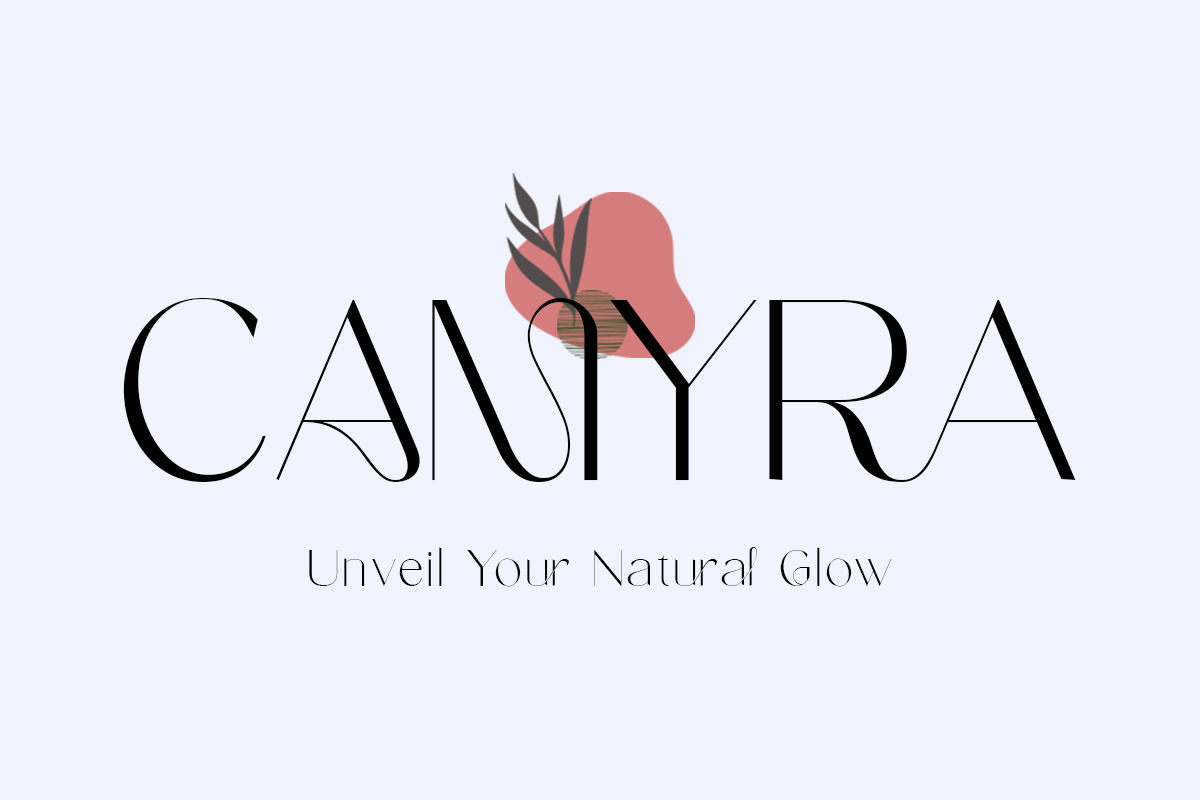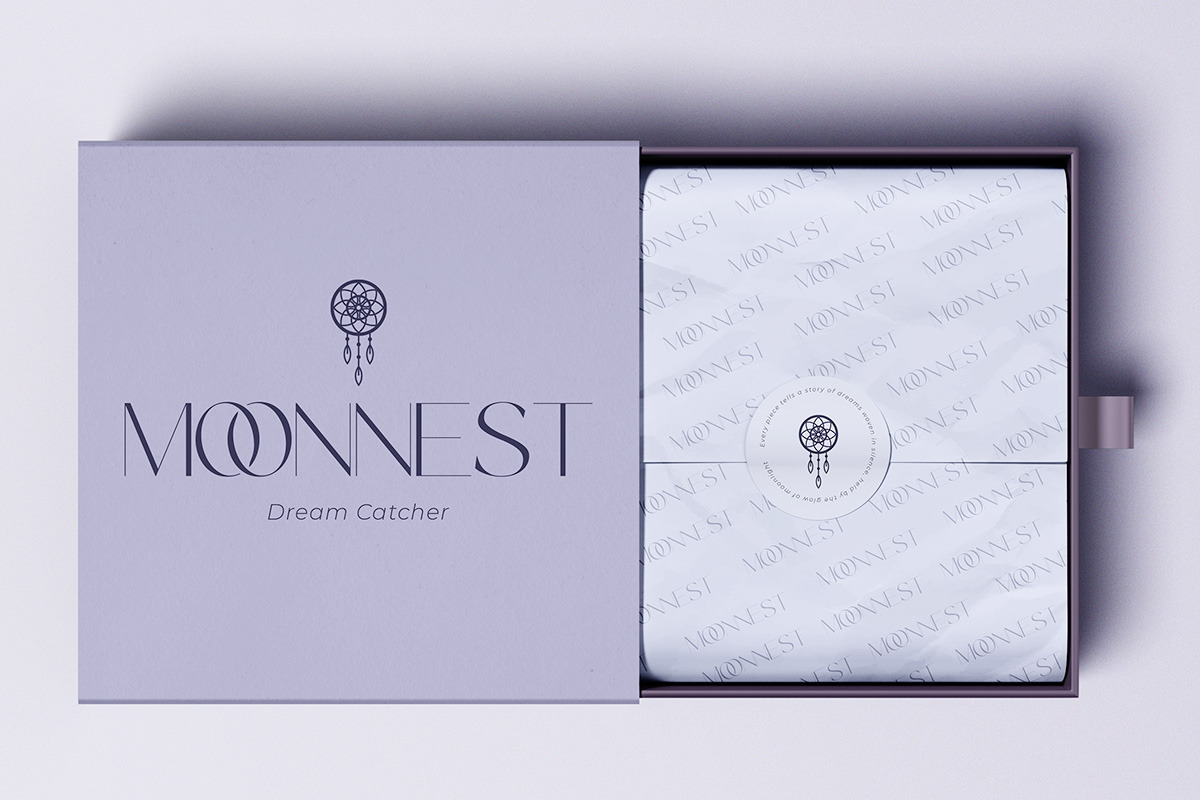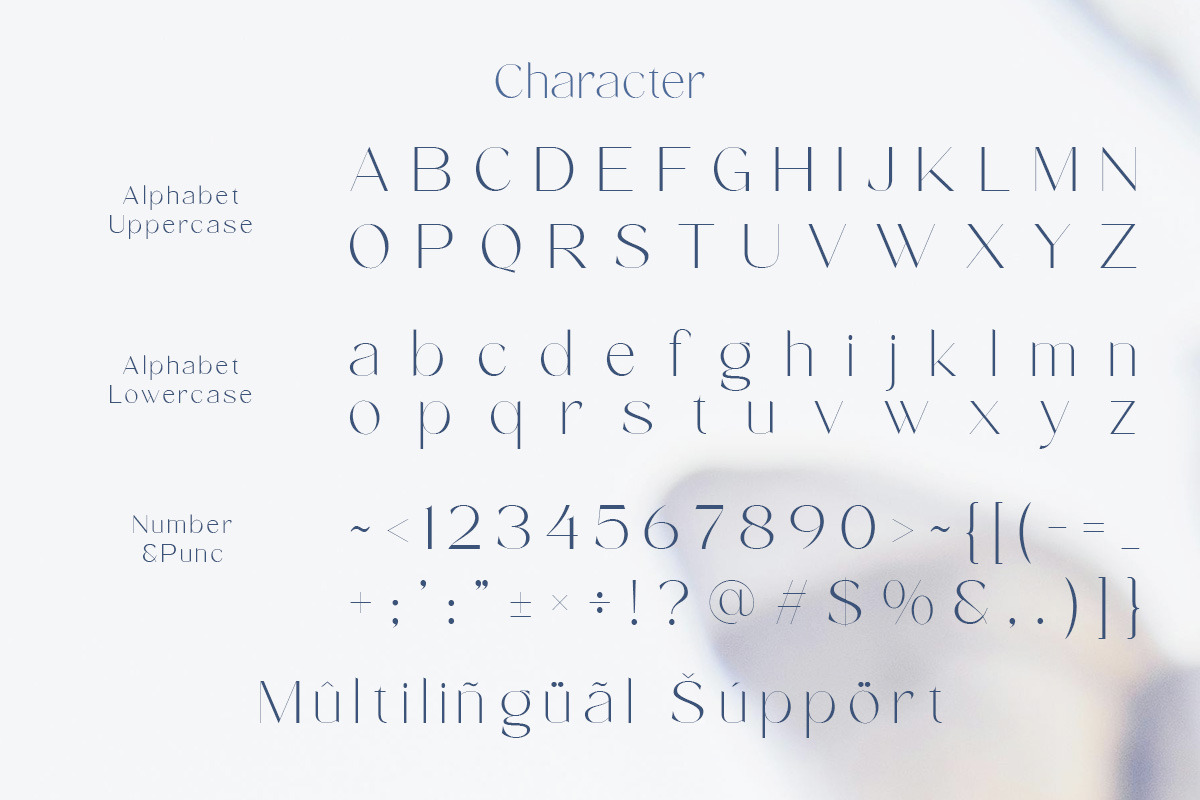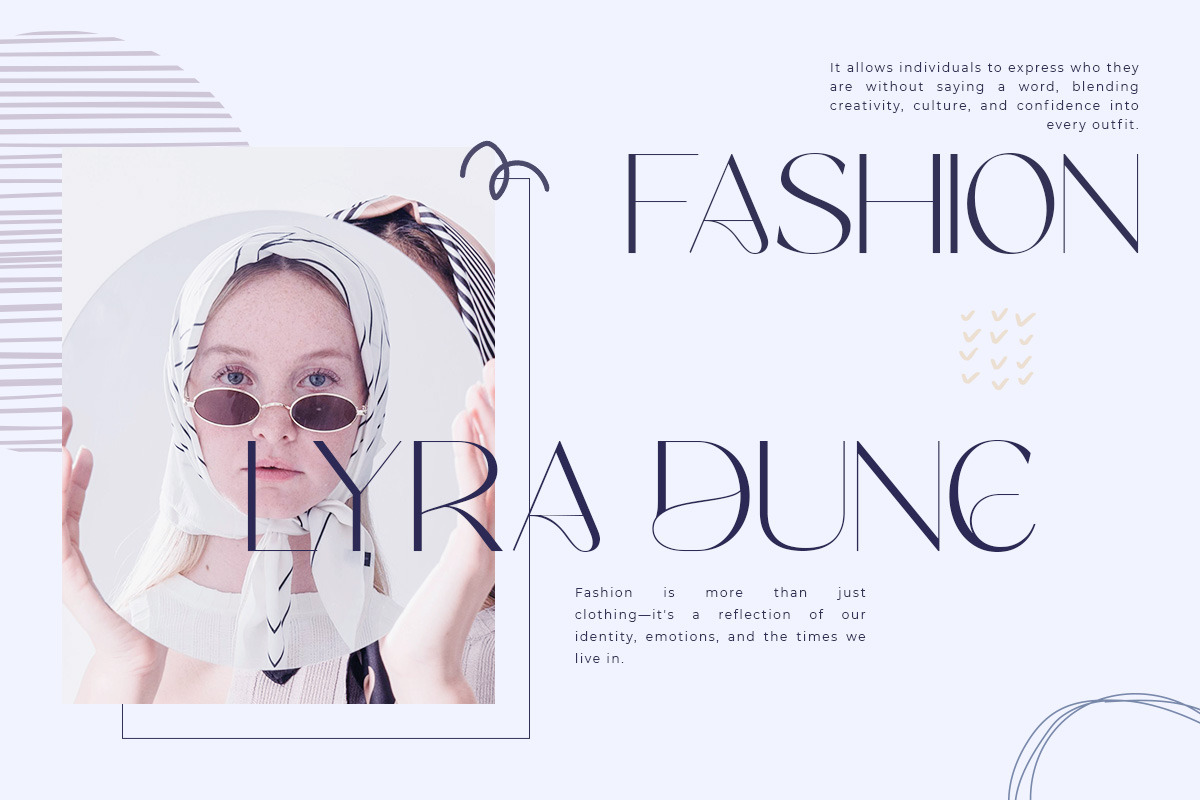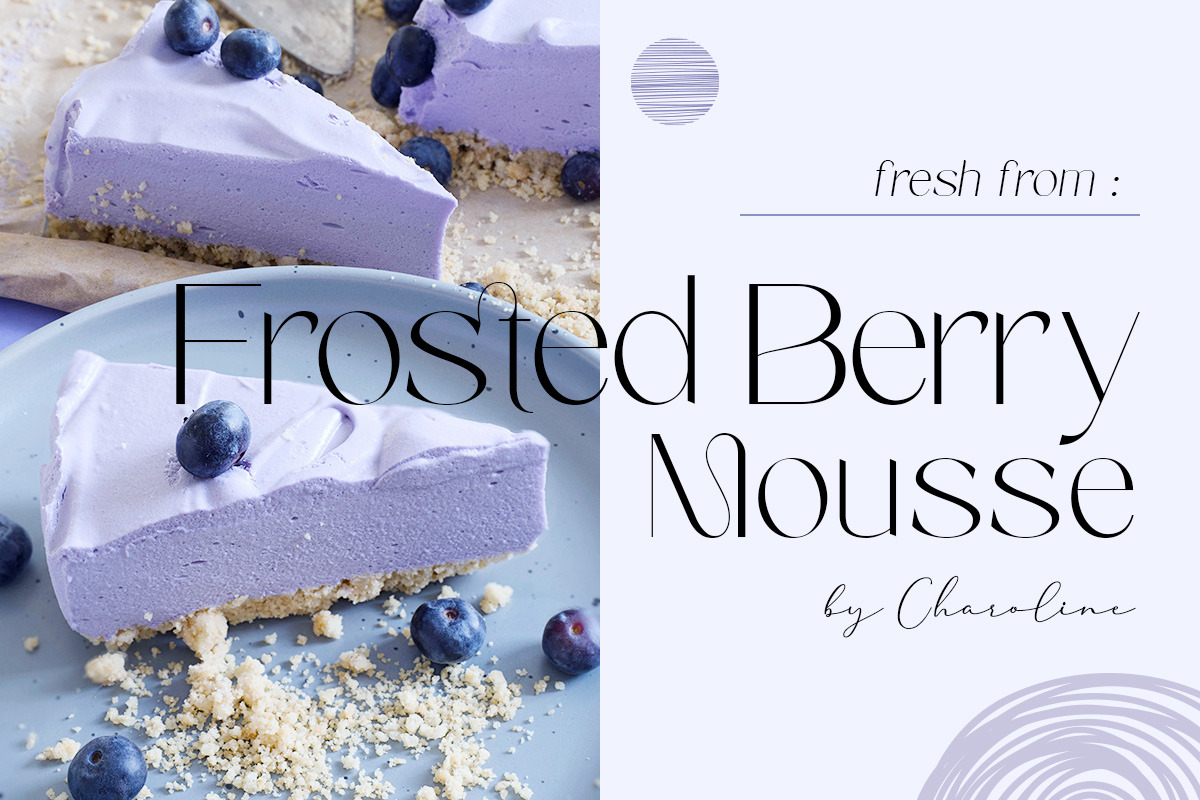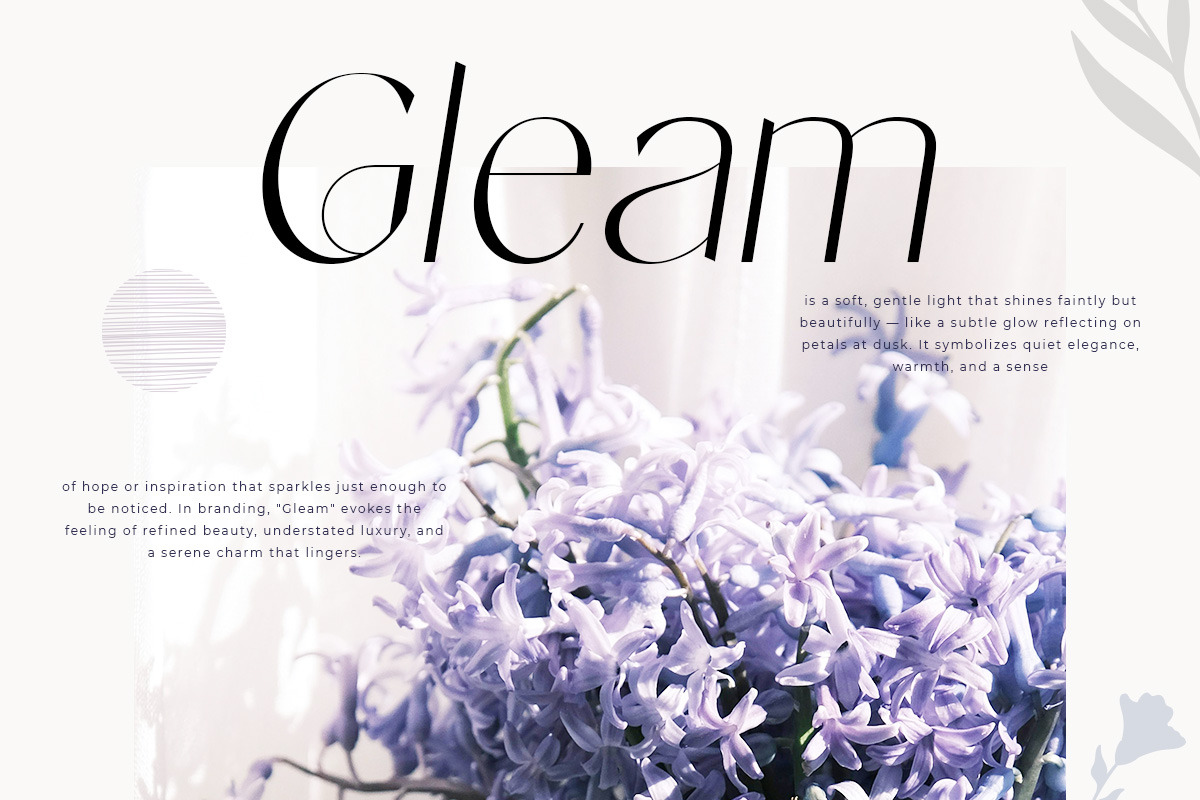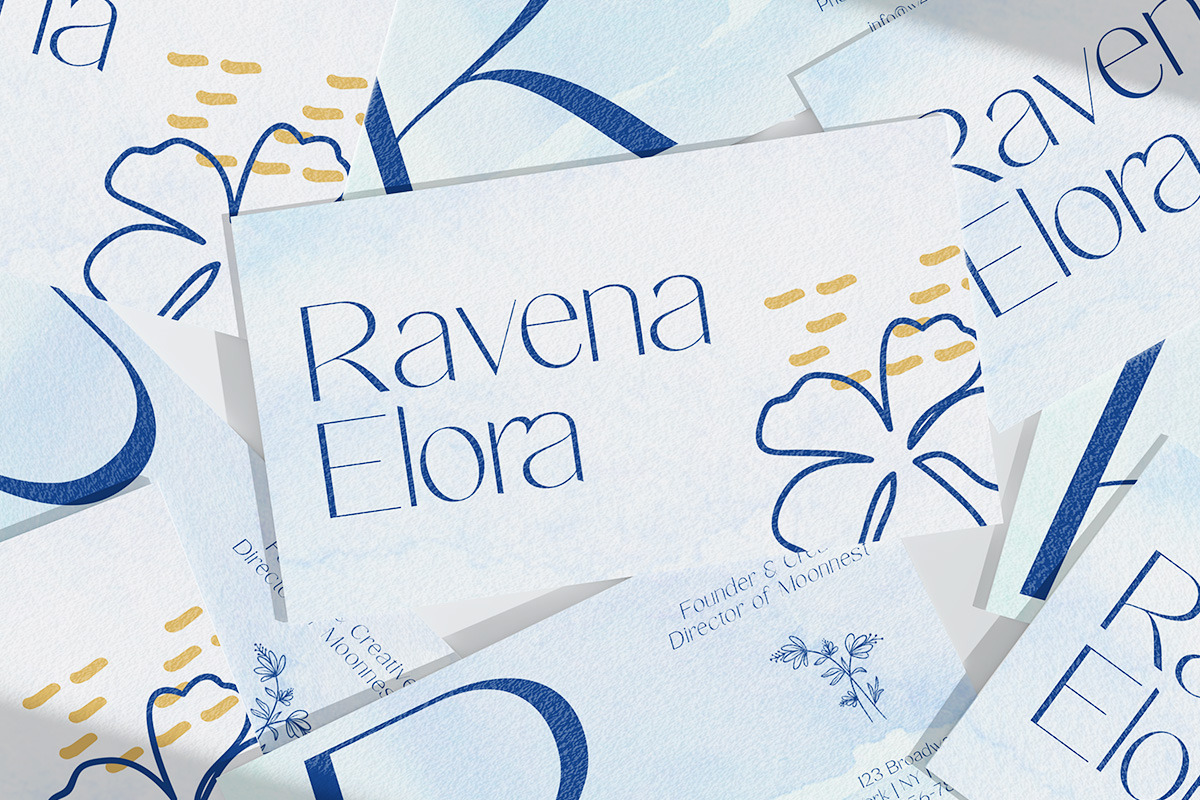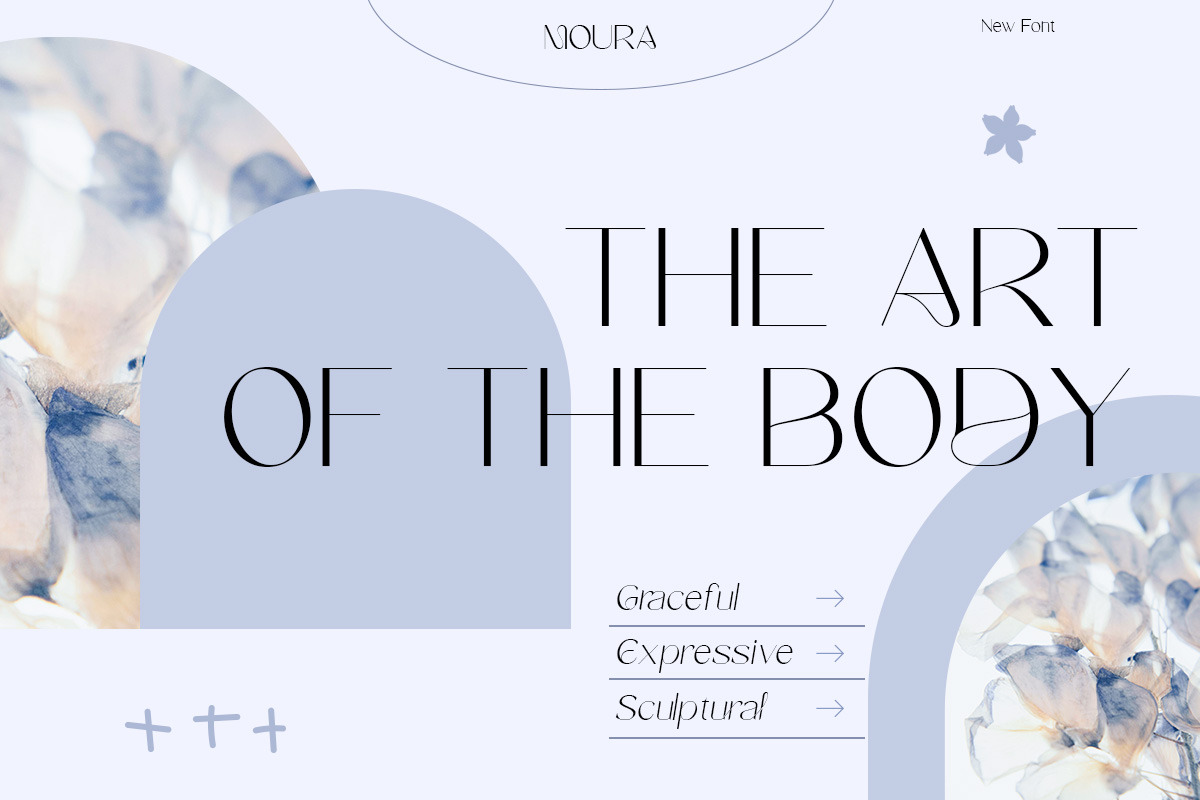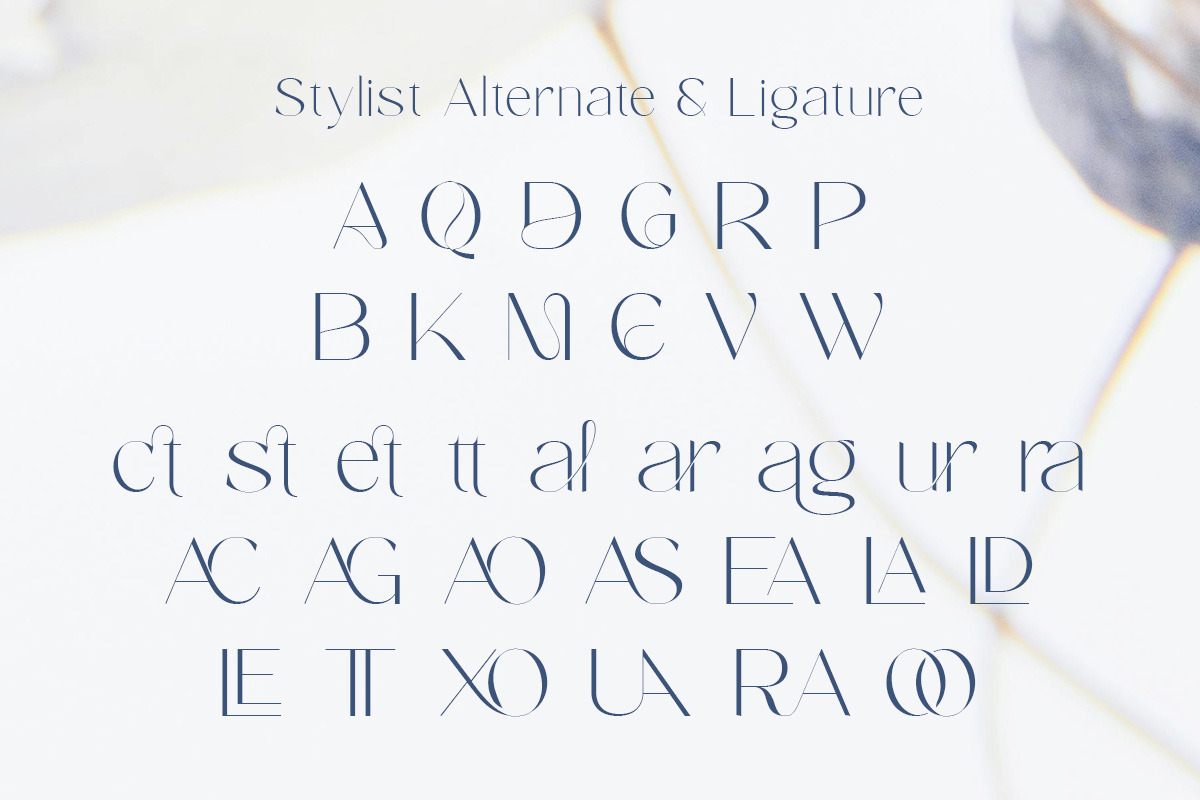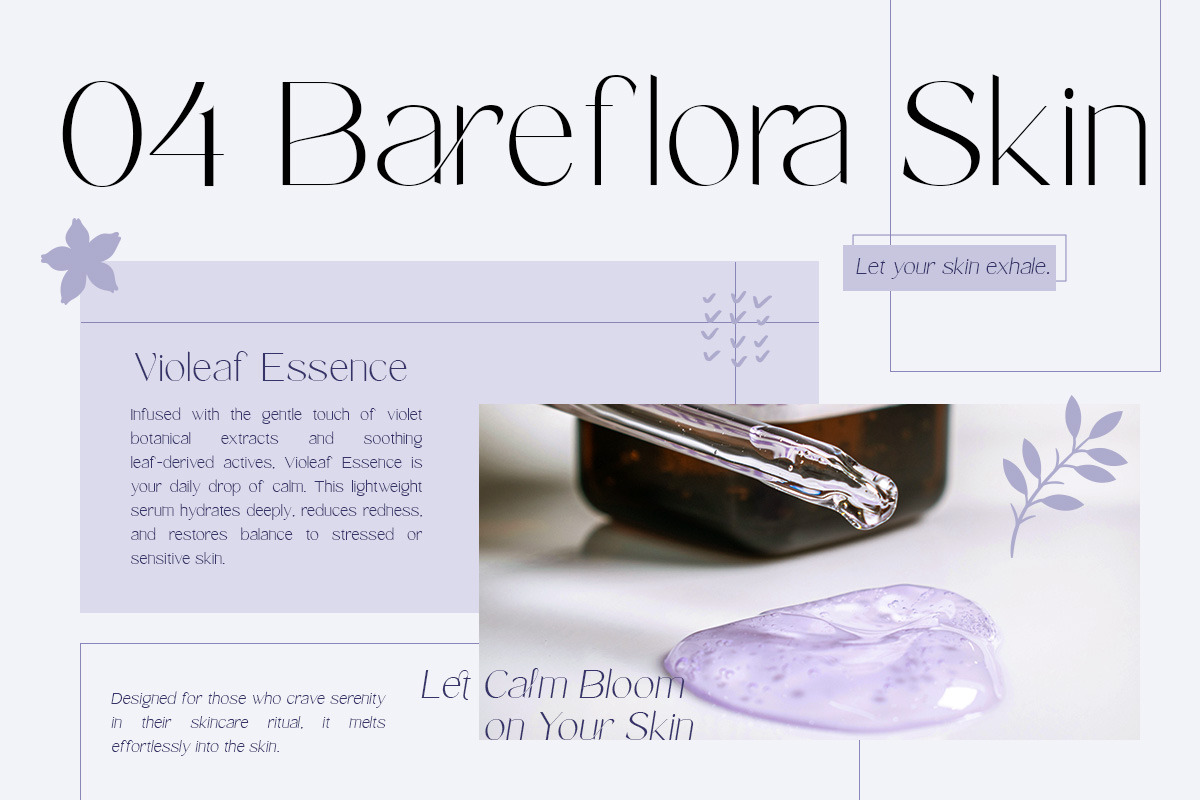
Moura - Modern Minimal Sans Serif
Moura is a sculpted modern sans serif typeface that speaks the visual language of elegance, grace, and creative confidence. With a clean, contemporary serif base accentuated by expressive alternates and stylish ligatures, Moura delivers a distinct identity to every project it touches. The high-contrast strokes, soft curves, and elongated terminals form a silhouette that's both editorial and artistic—ideal for brands seeking a refined, fashionable tone.
Designed with lifestyle and luxury markets in mind, Moura fits perfectly in skincare packaging, fashion campaigns, blog headers, and Instagram visuals. Its letterforms create natural rhythm and balance, making your typography visually striking yet effortlessly readable. Whether used in bold headlines or paired with minimalist graphics, Moura adds an air of exclusivity and intention.
This font is more than just a stylistic choice—it’s a powerful storytelling tool. It gives brands the ability to visually communicate trust, sophistication, and modern flair without overwhelming the design. With its robust multilingual support, alternative glyphs, and adaptable style, Moura is the secret weapon for designers aiming to build timeless, elegant identities.